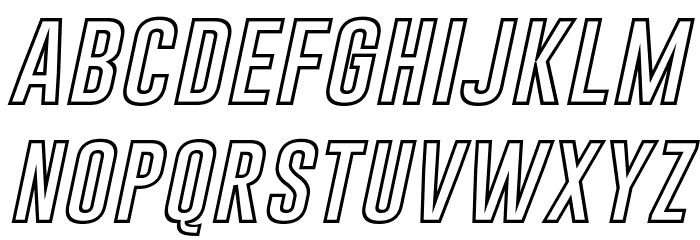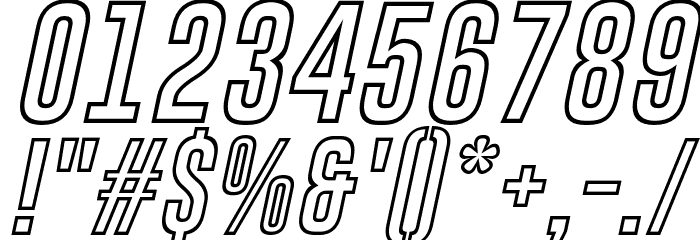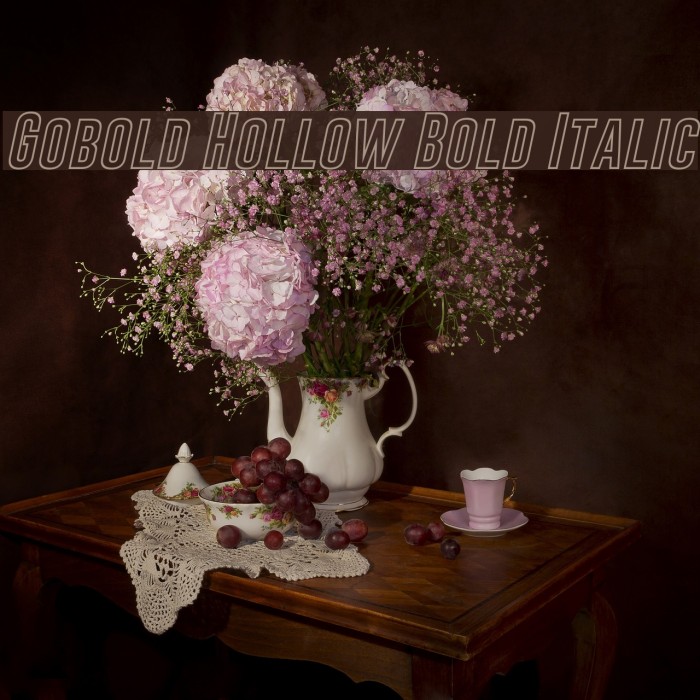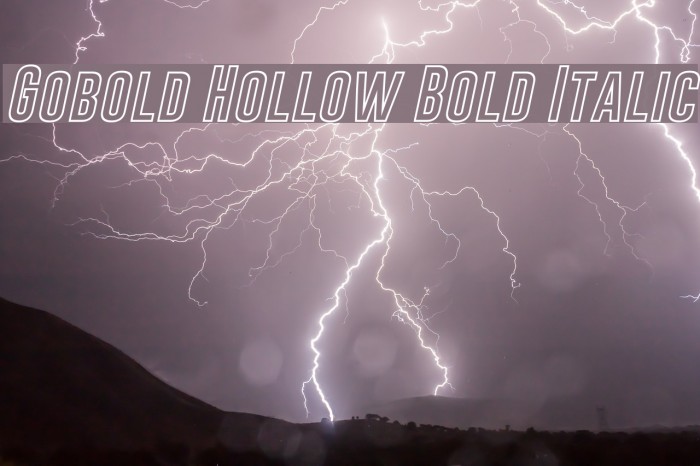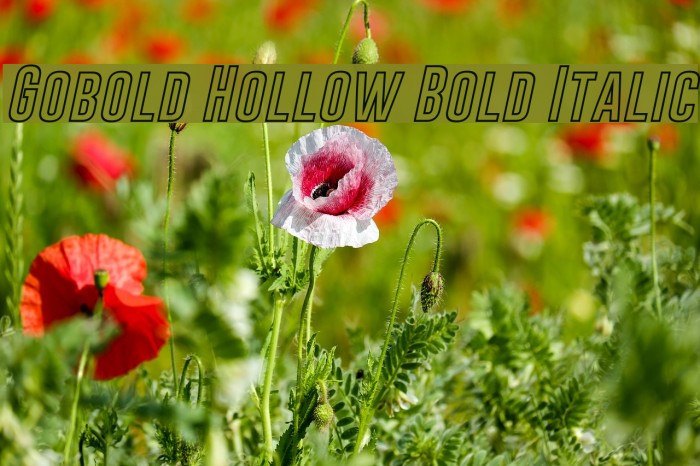
Gobold Hollow Bold Italic Font
This font features a bold, hollow design with a distinct italic slant, giving it a dynamic and modern appearance. The uppercase and lowercase letters maintain a consistent style, with clean lines and a geometric structure. The numbers and special characters are designed to match the overall aesthetic, ensuring uniformity across all characters. The hollow nature of the font adds a unique visual element, making it stand out in various design contexts. Its boldness and italicized form suggest movement and energy, making it suitable for eye-catching headlines and logos.
A bold, hollow, italic font with a modern and dynamic style.
- Proposed Projects: Ideal for branding, advertising, posters, and any project requiring a striking and modern typeface.